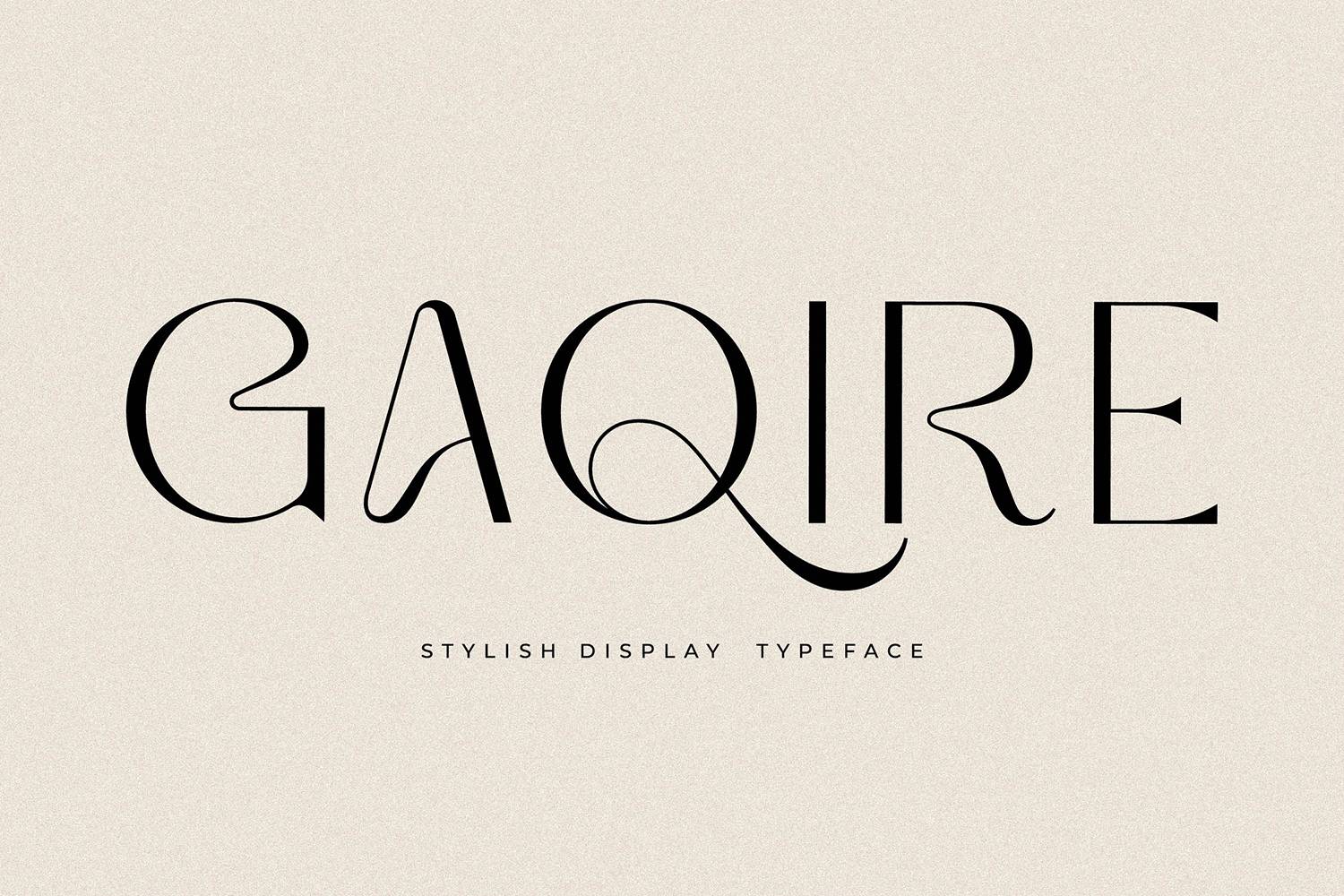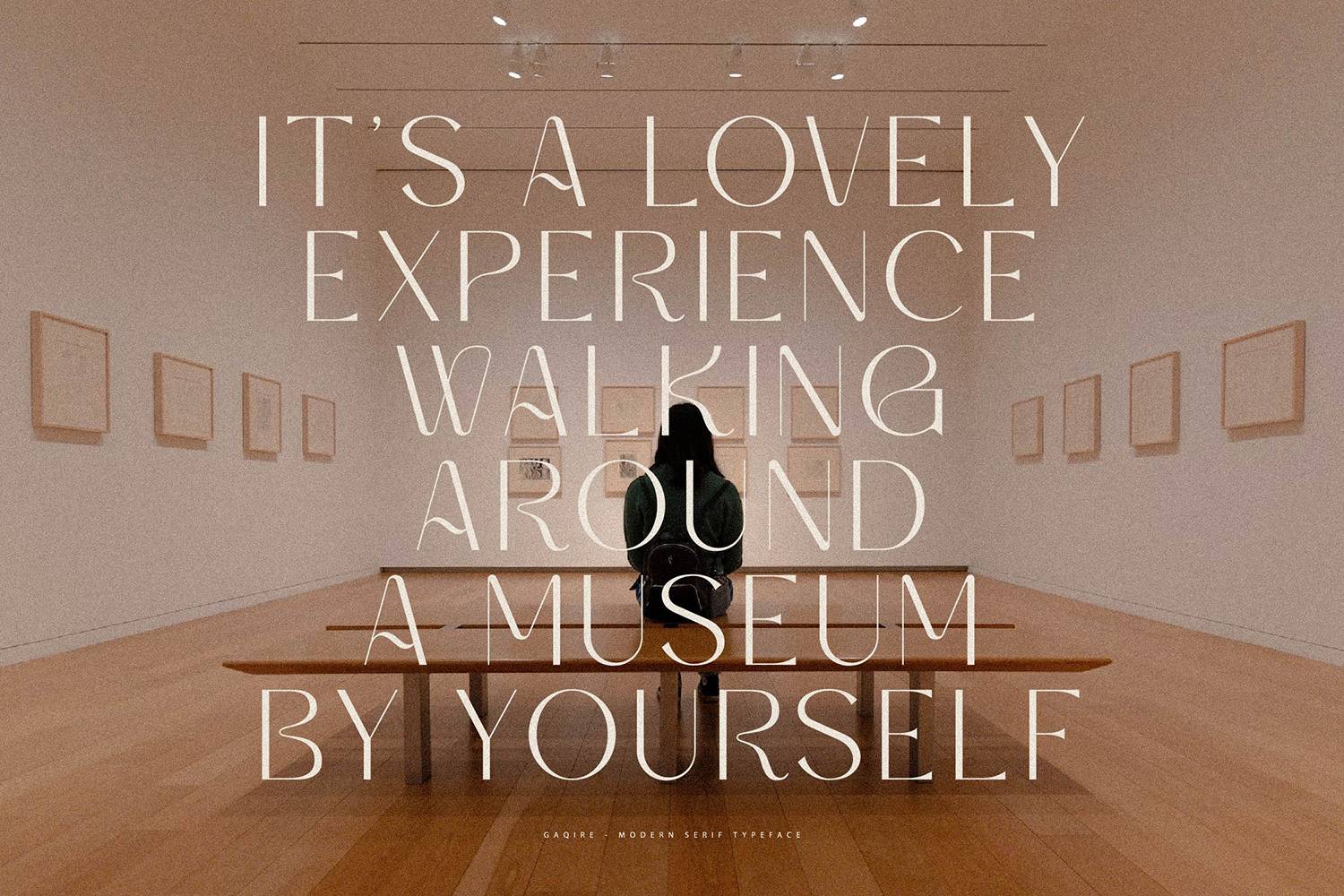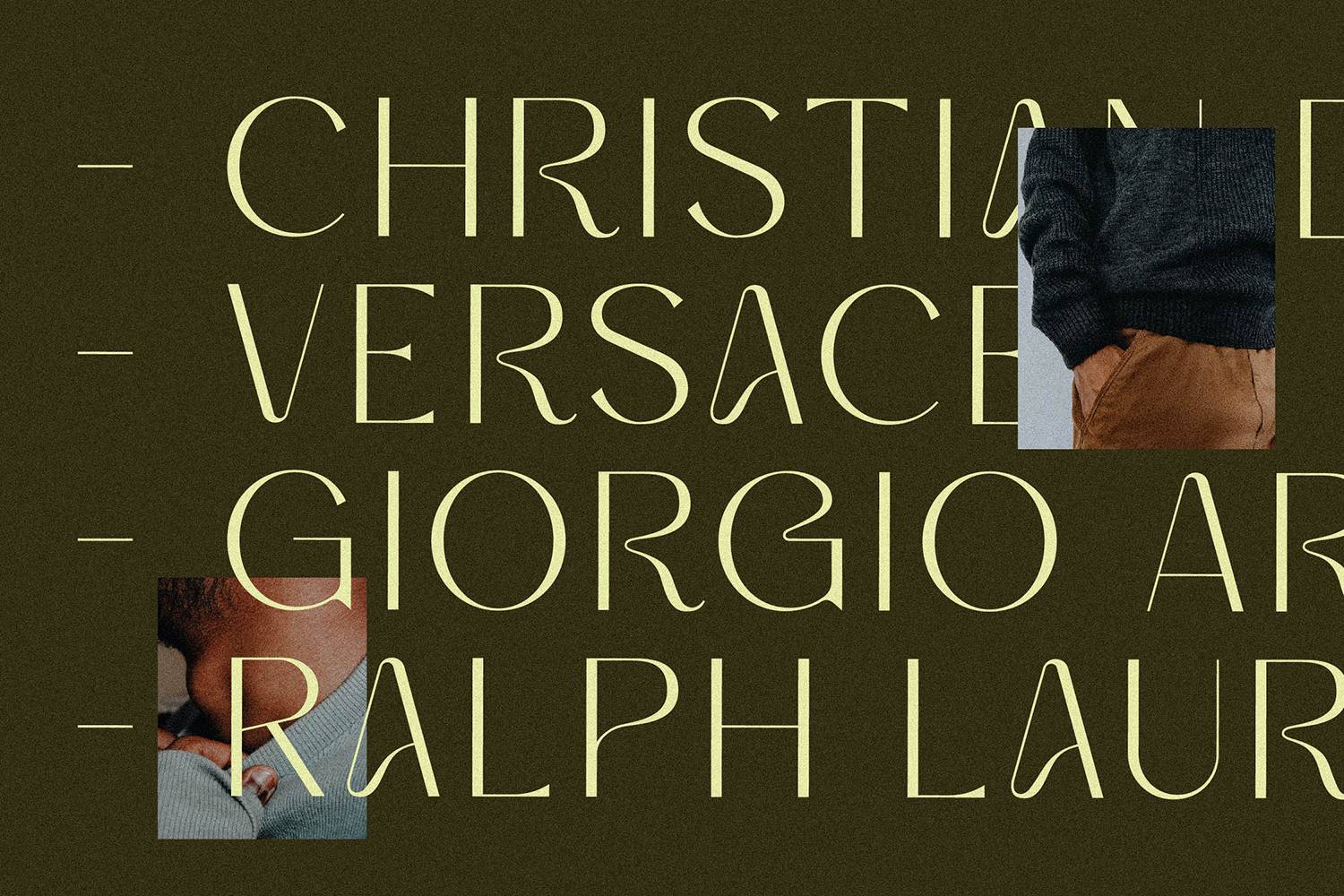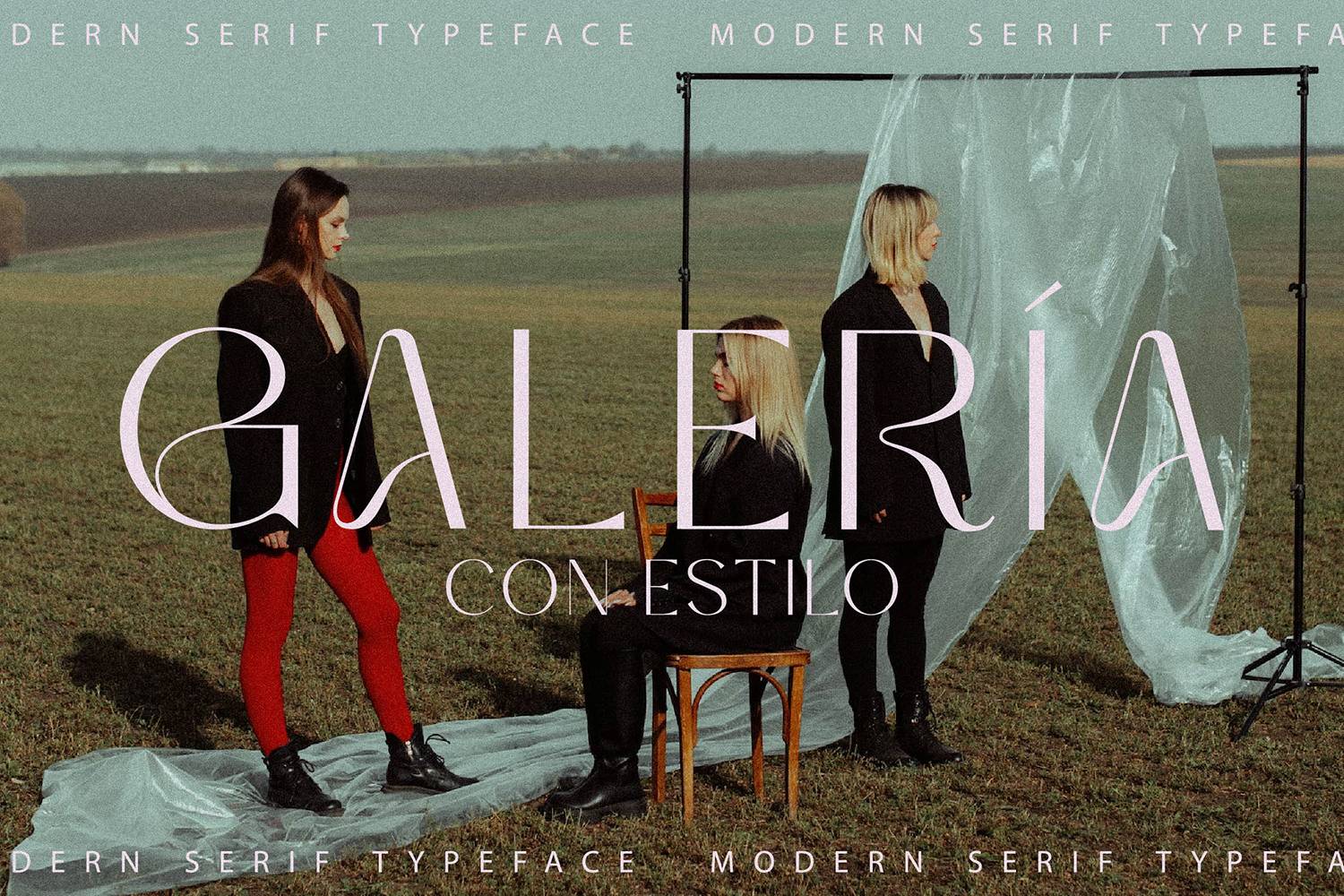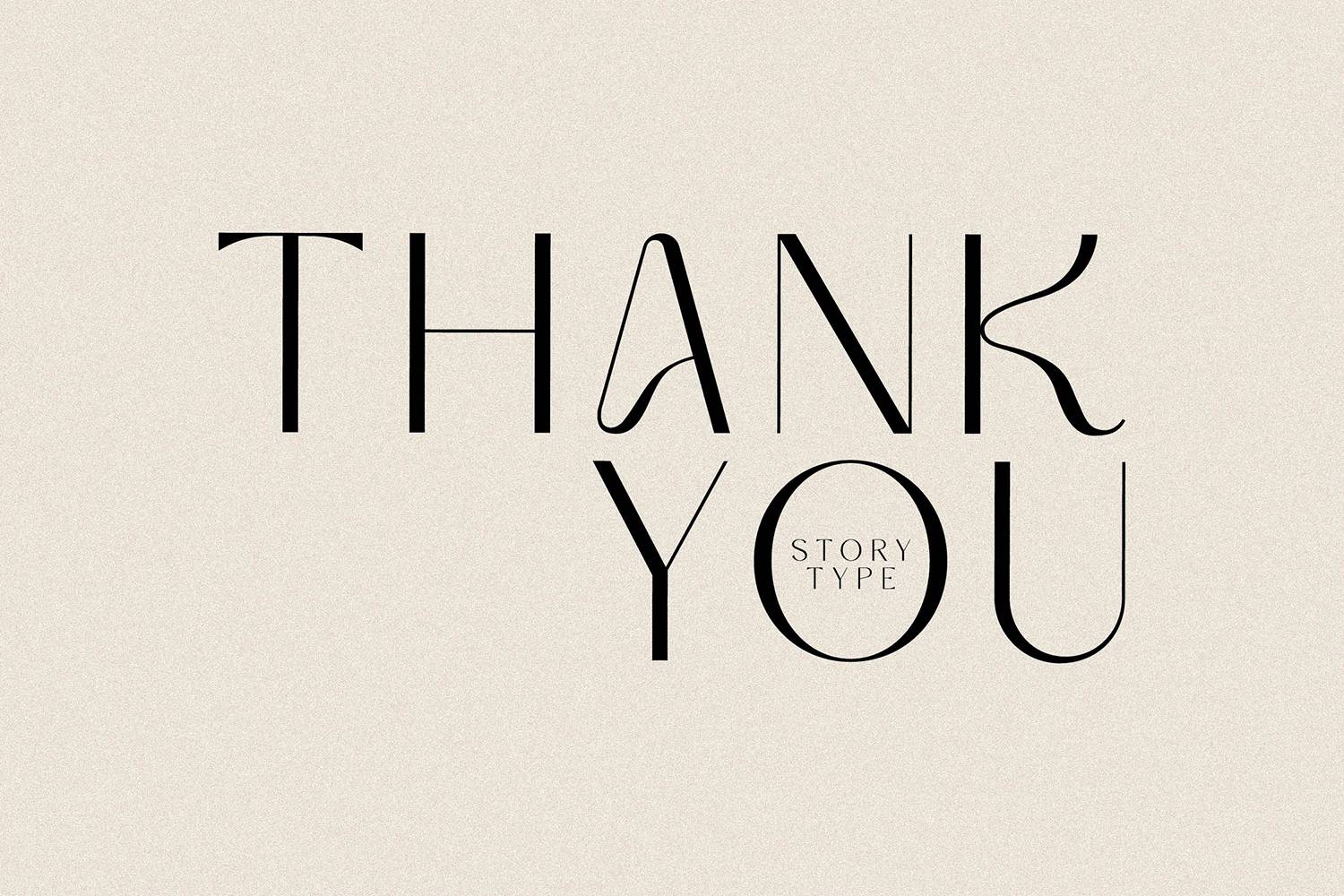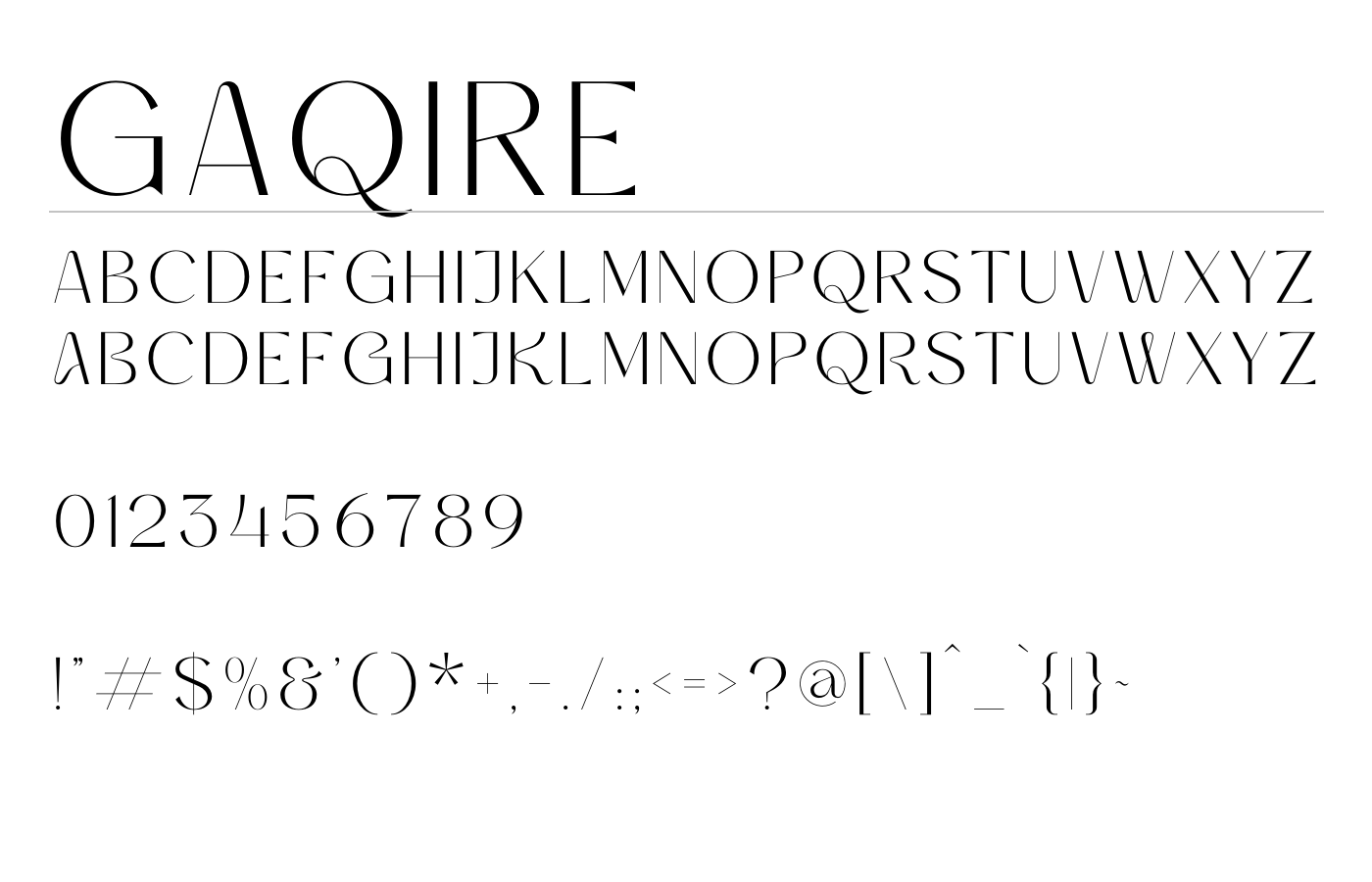
Gaqire is an elegant serif font with a modern, high-contrast design featuring thin strokes and delicate, sharp serifs. Its tall, narrow letterforms and unique flourishes give it a sophisticated and stylish feel, making it perfect for luxury branding, editorial headlines, and fashion-focused projects where a refined, artistic touch is desired.
Gaqire Font
About Gaqire Font